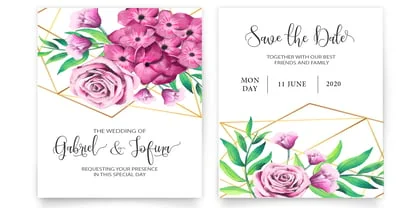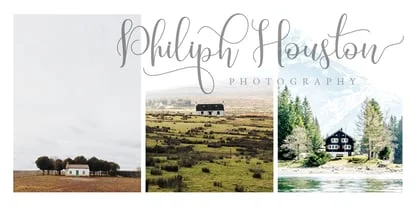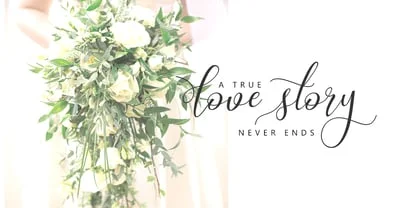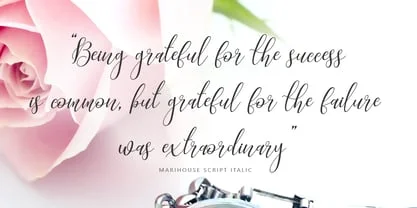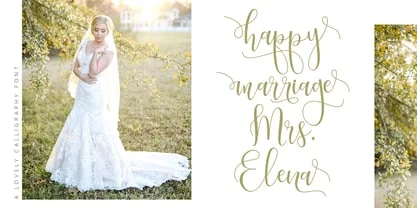
Marihouse Script Font
Marihouse Script is a beautiful calligraphy design, including Regular and italic. This font is enough with a sweep. Can be used for various purposes. such as logos, product packaging, wedding invitations, branding, titles, signs, labels, signatures, book covers, posters, quotes and more. Marihouse script displays alternative OpenType styles, ligatures and Various International for most Western languages. To enable OpenType Stylistic alternates, you support programs that support OpenType features like Adobe Illustrator CS, Adobe Indesign & CorelDraw X6-X7, Microsoft Word 2010 or later. Marihouse script is encoded with PUA Unicode, which allows access to all features without special design software. Mac users can use Font Books, and Windows users can use Character Map to view and copy extra characters to paste into your favorite app / text editor. If you need help or have any questions, please let me know or send email "" I am happy to help :) Thanks & Happy Designing!